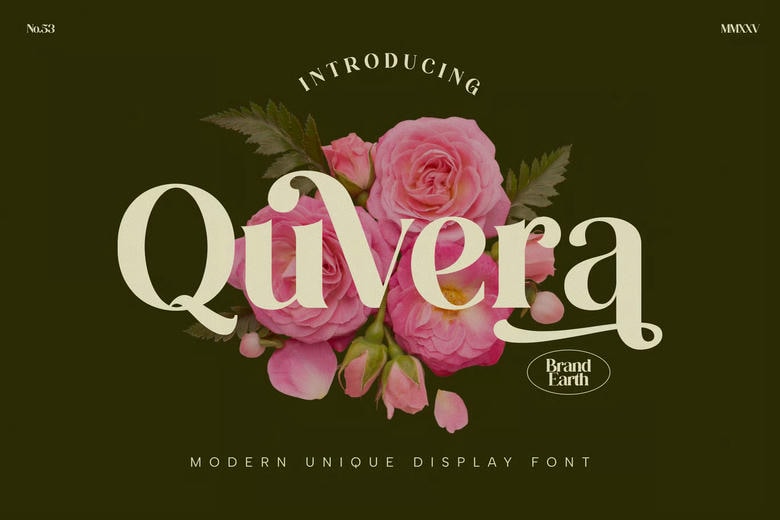
Quvera Font
Quivera is a beautiful serif display font combining artistic touch and contemporary elegance. It is seamlessly smooth with the floral elements and well-designed letterforms that make it ideal in branding, fashion editorials, packaging, and aesthetic designs.
The decorative unique typography brings a creative blooming aspect to visual works which require both style and character. Suits best to those designers, who are fond of the fresh and visually appealing typeface.
Quvera Serif Font